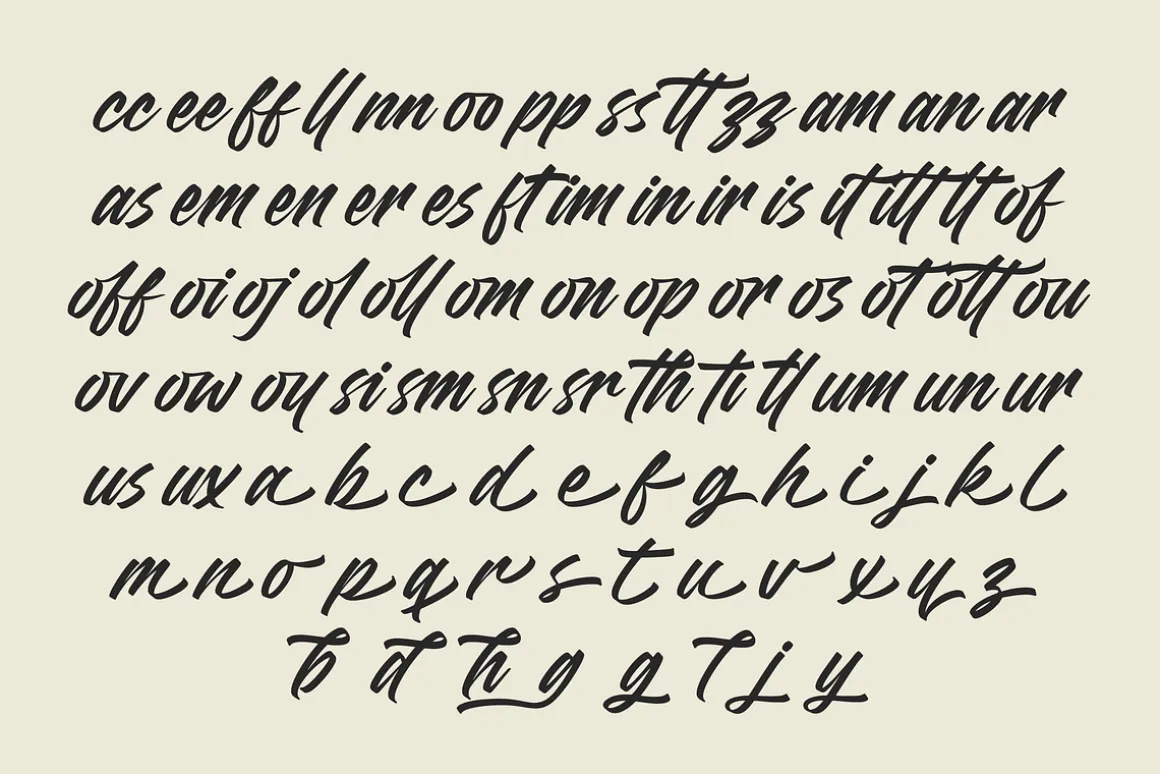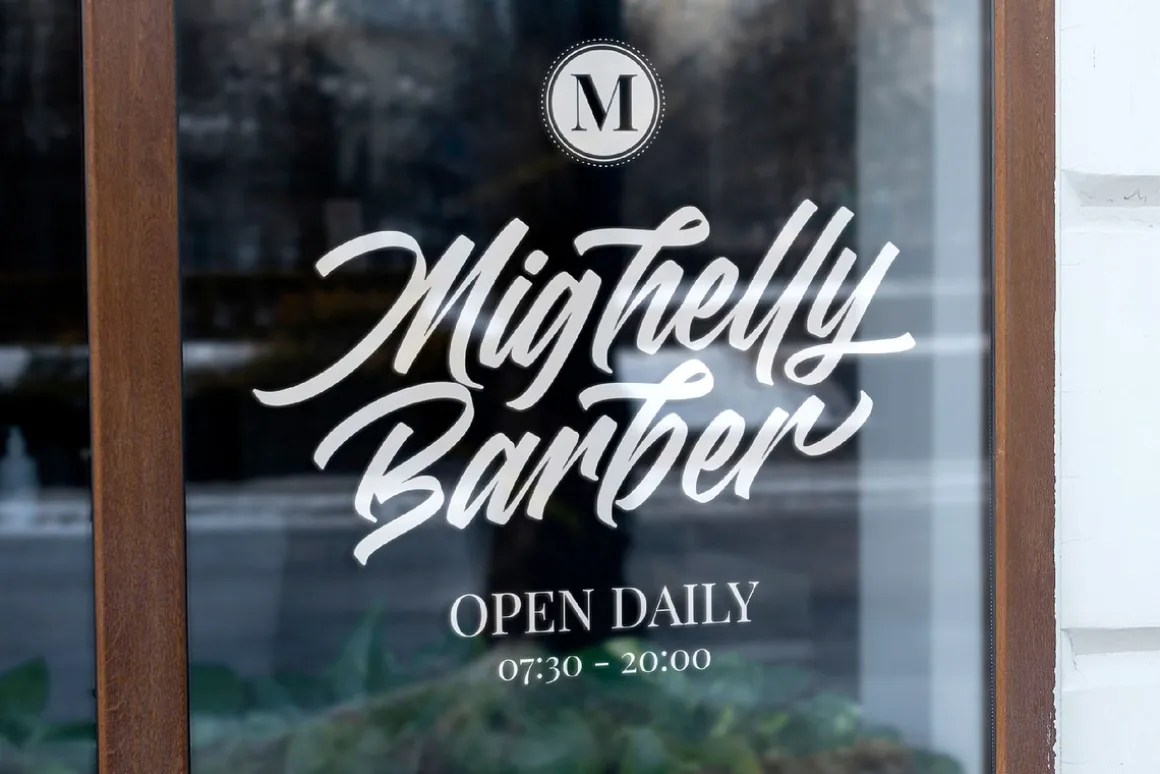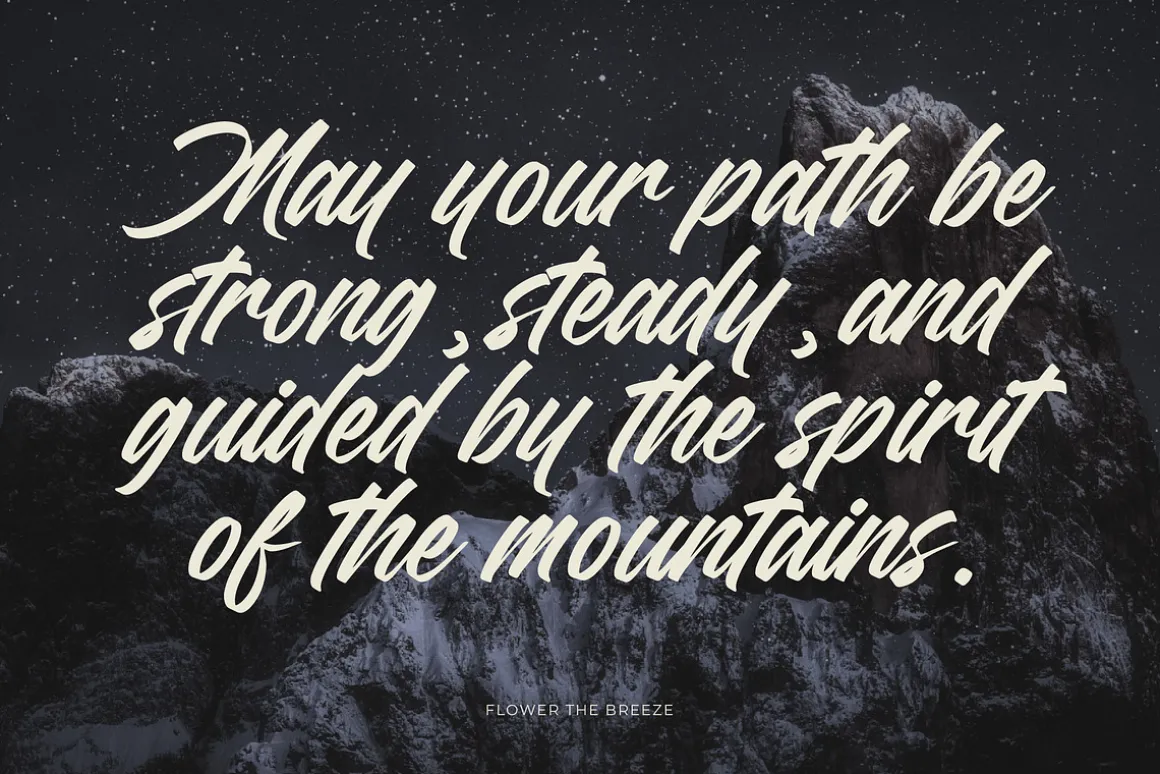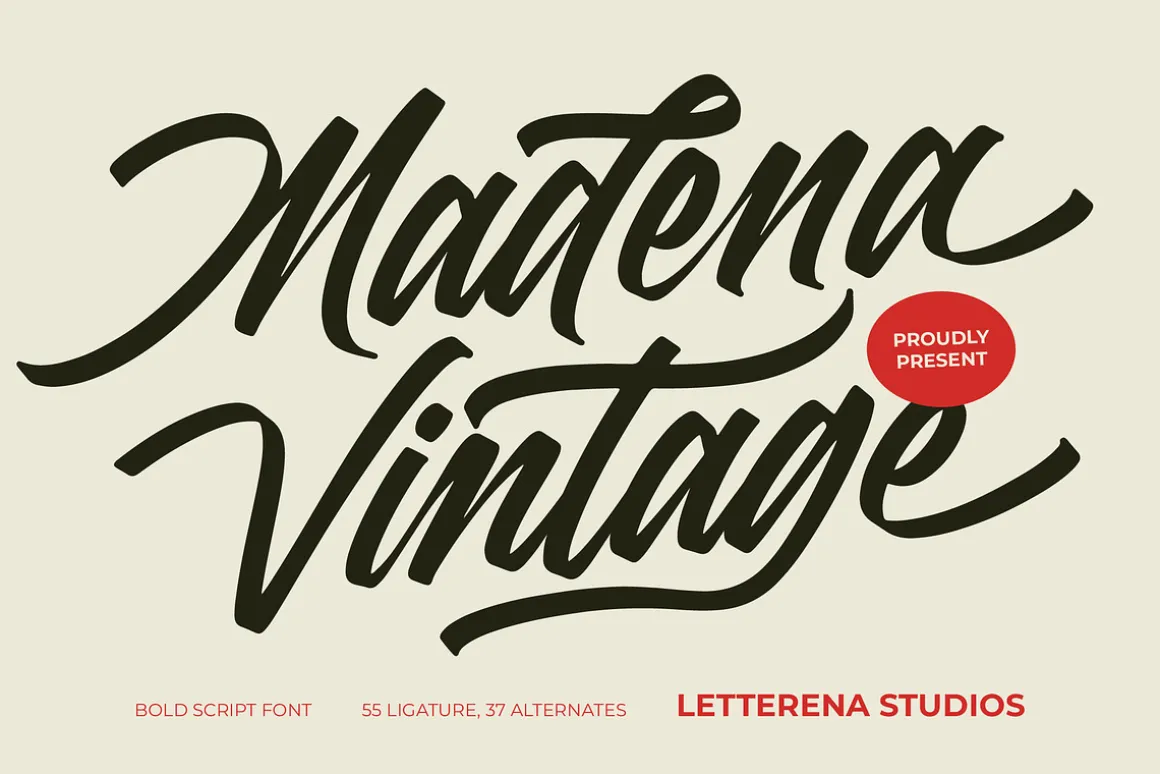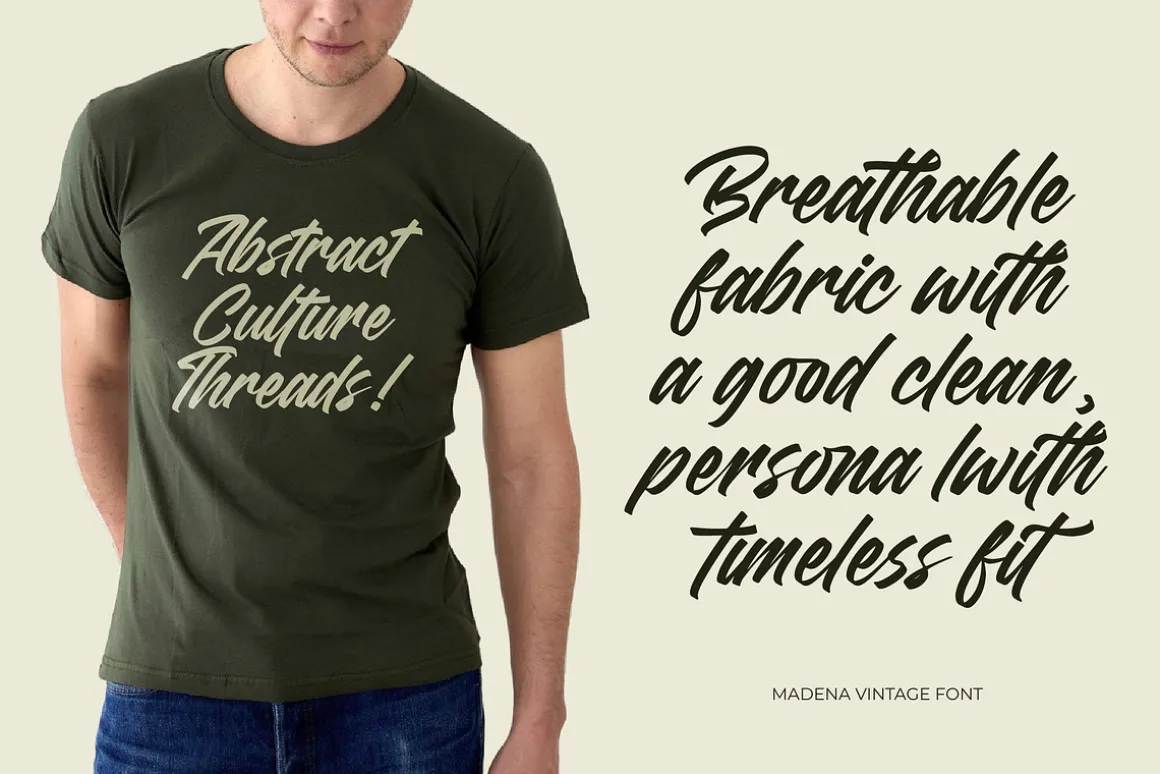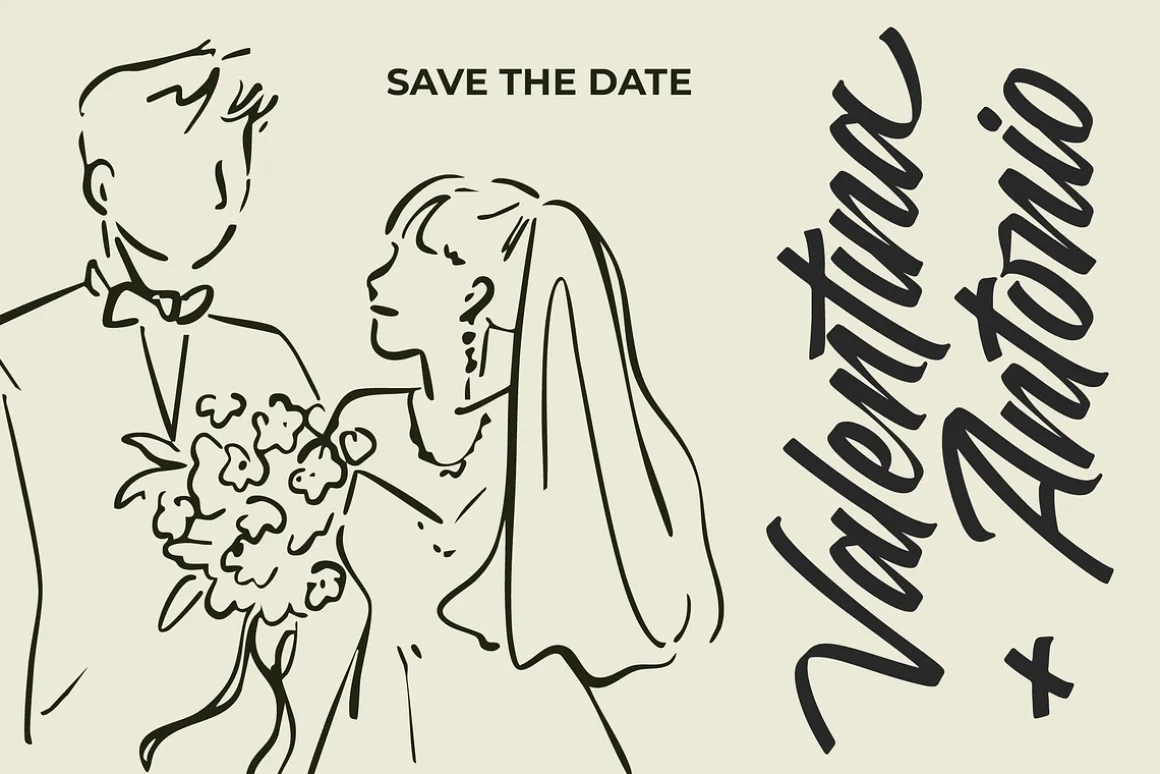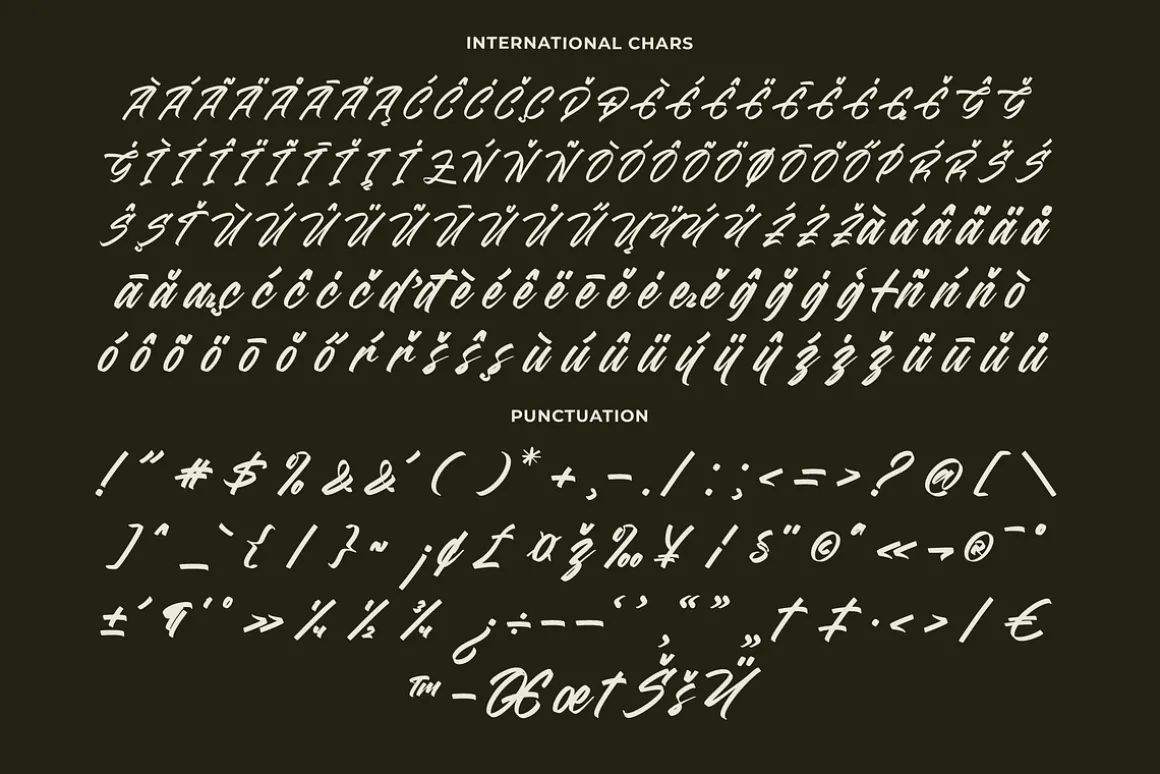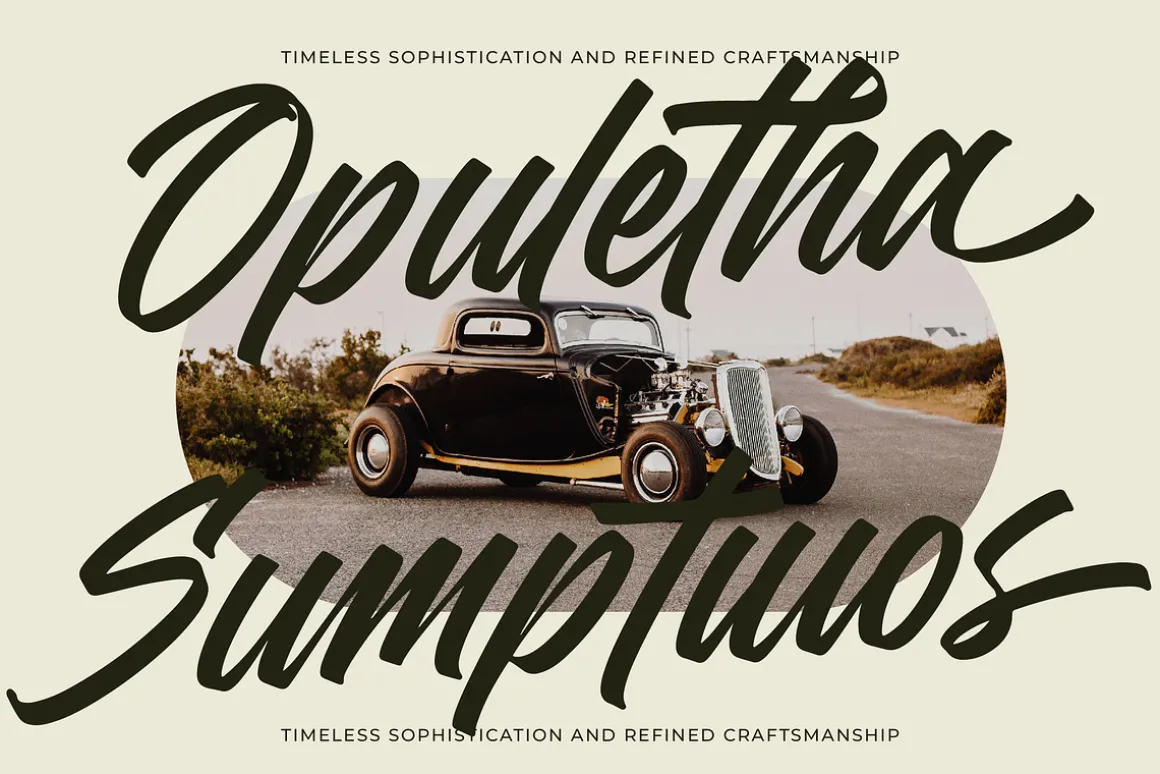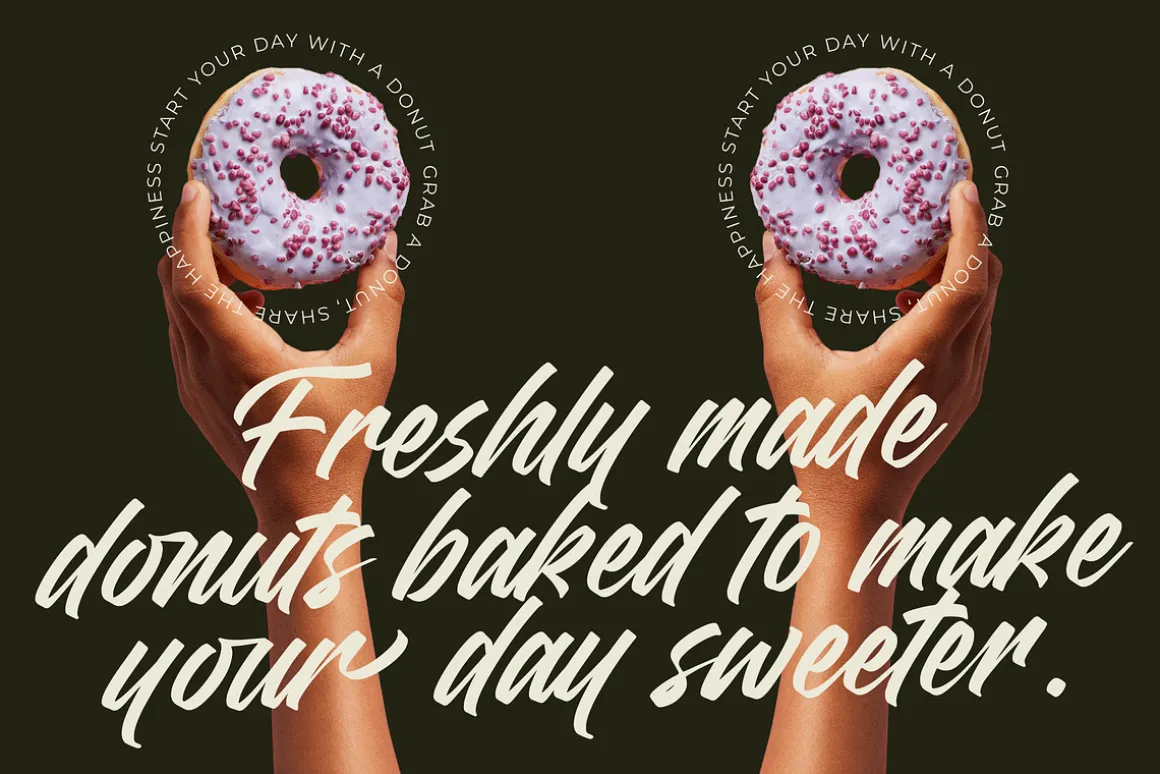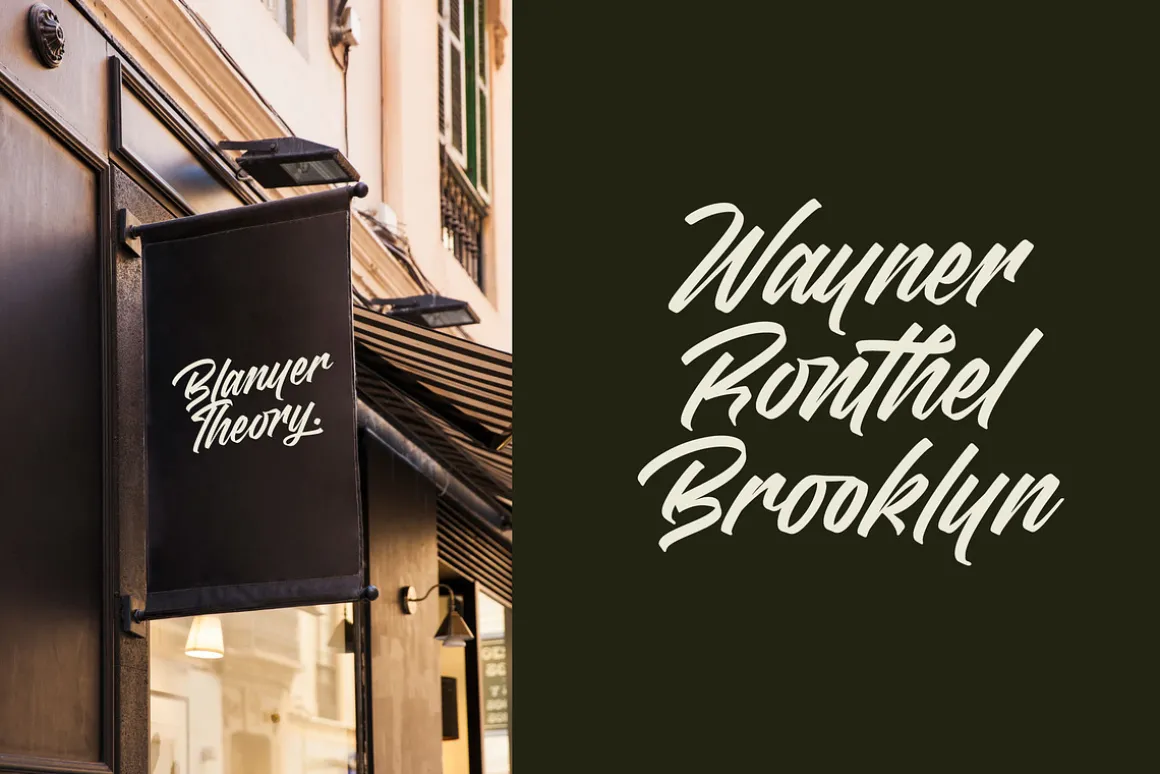
Madena Vintage – Bold Script Font , Madena Vintage is a bold script font crafted with dynamic strokes, expressive curves, and a confident retro attitude—perfect for branding, logotypes, apparel graphics, signage, advertising, and vintage-inspired design projects. Its thick brush rhythm, smooth connection, and natural handwritten energy deliver a powerful visual voice that stands out in modern layouts while maintaining a distinctly nostalgic charm. With 55 ligatures and 37 alternates, Madena Vintage gives designers full flexibility to create lettering that feels authentic, handcrafted, and unmistakably bold.
- Numerals
- Punctuations (OpenType Standard)
- Accents (Multilingual Characters)
- Ligatures and Alternative Style Stylistic Set